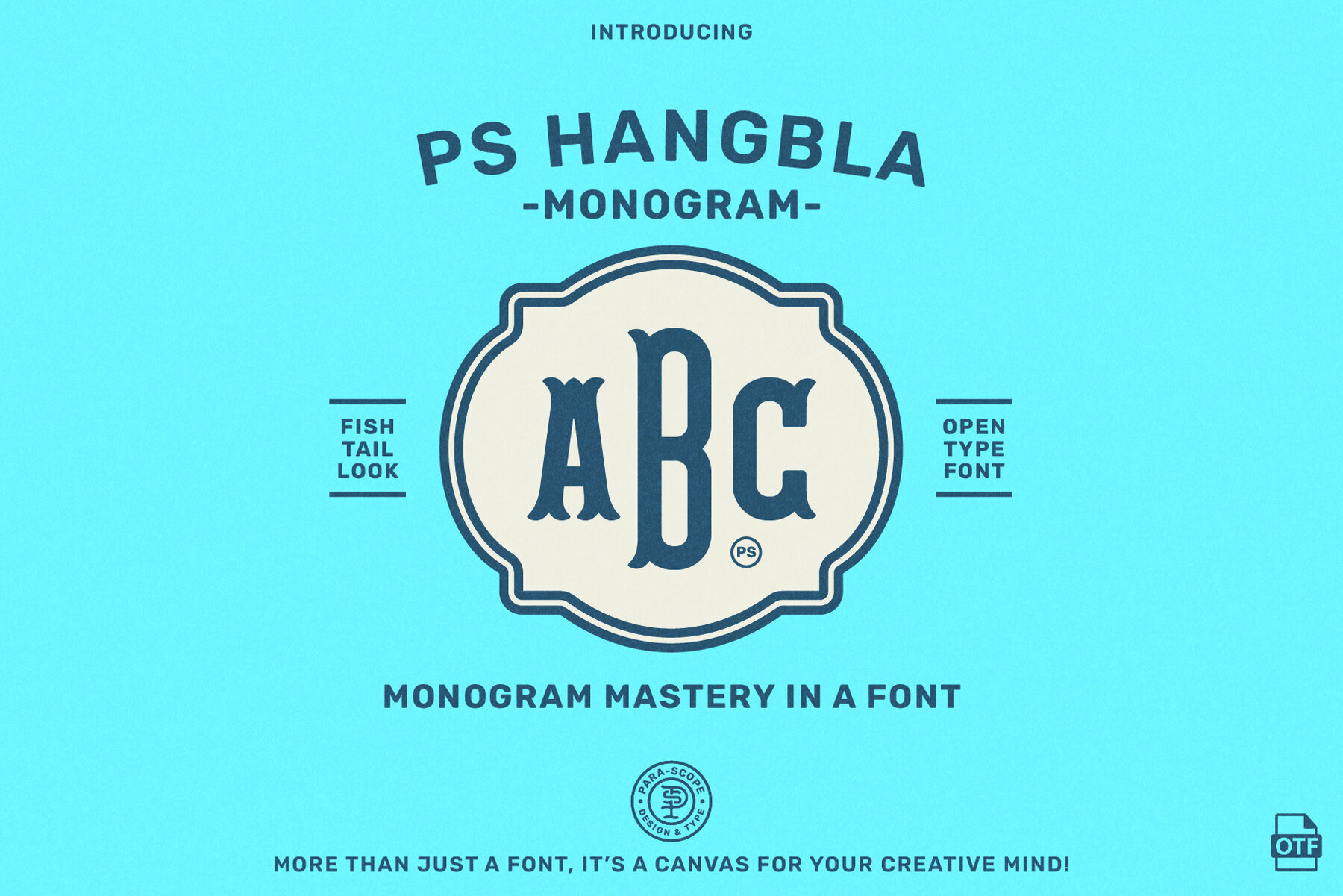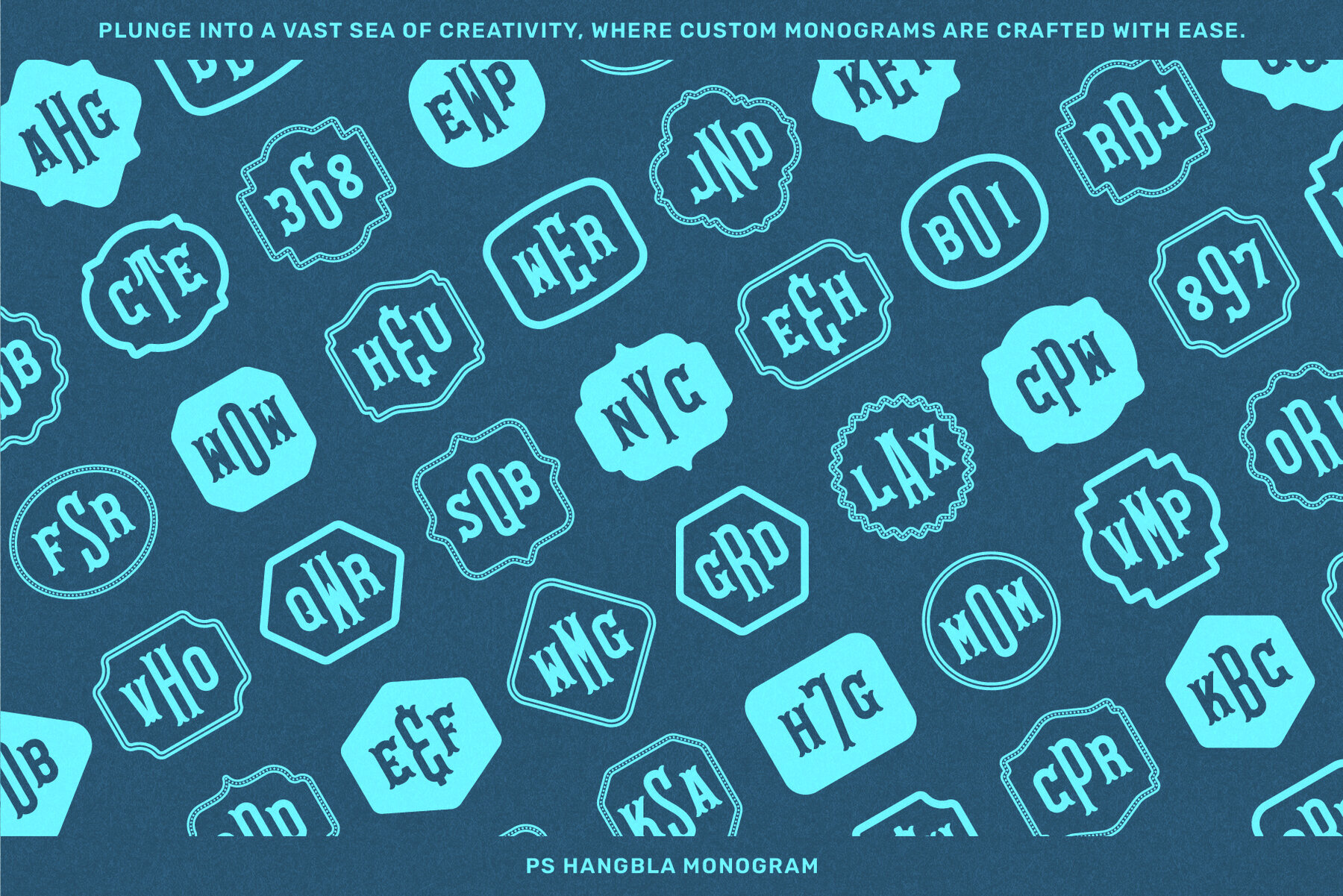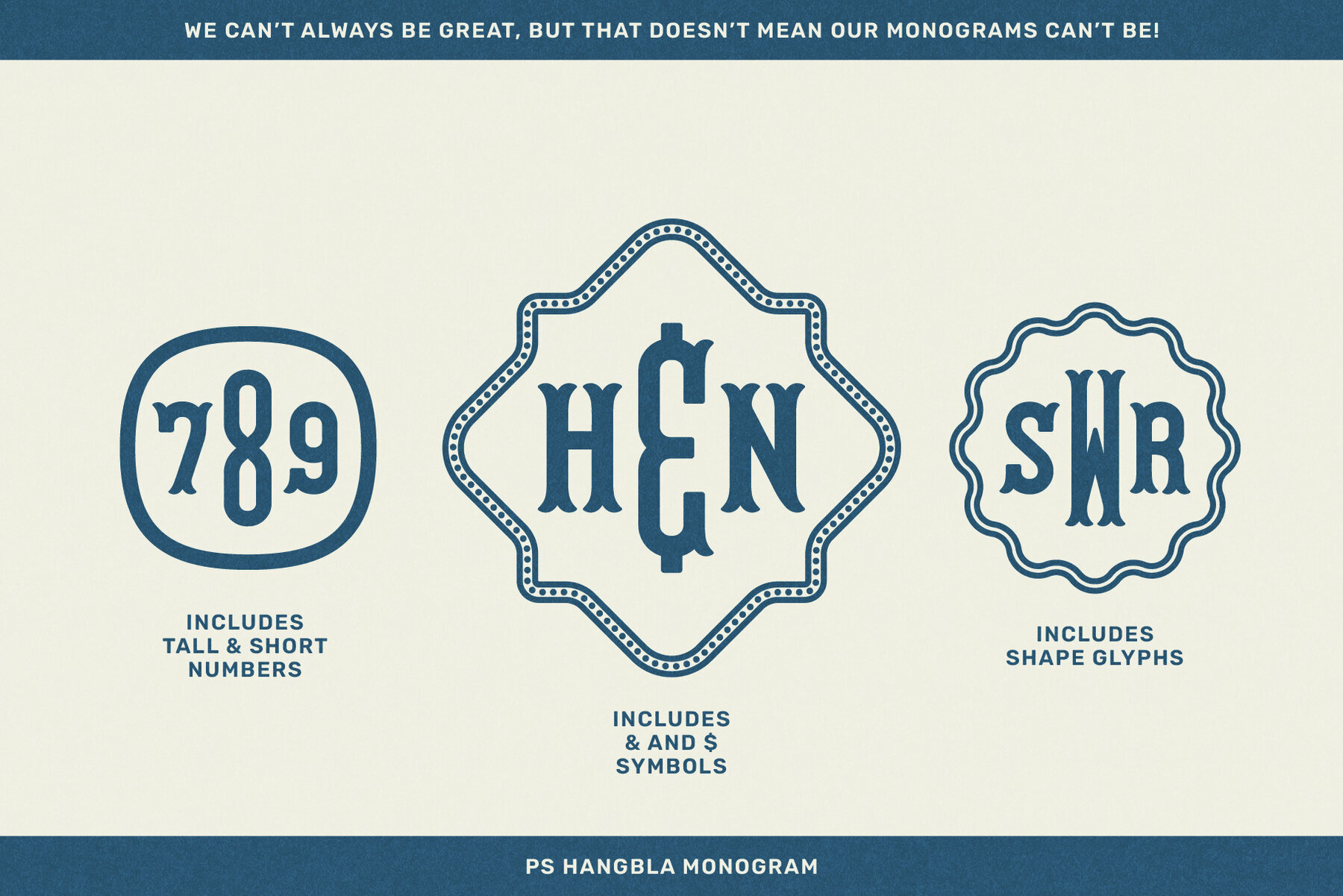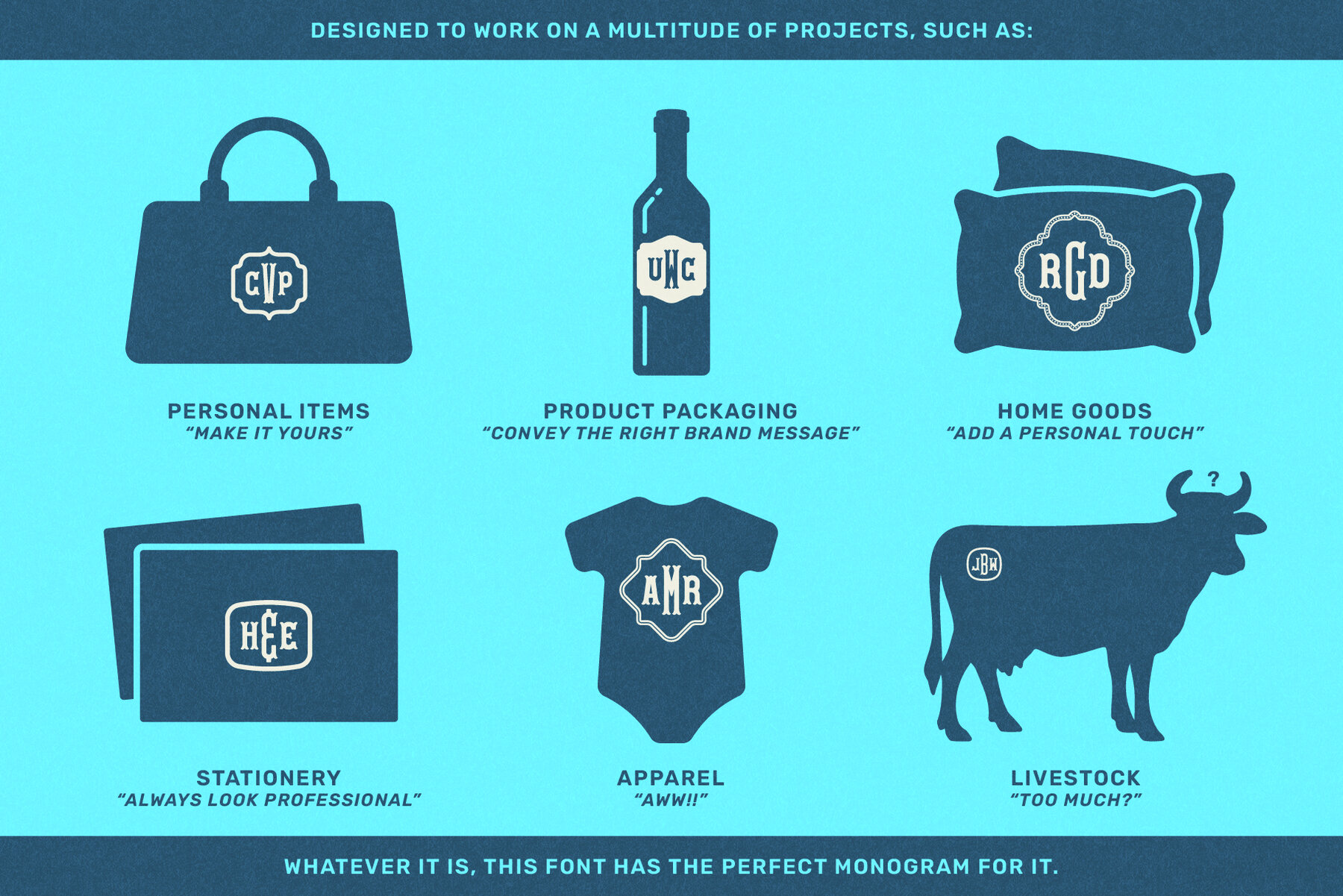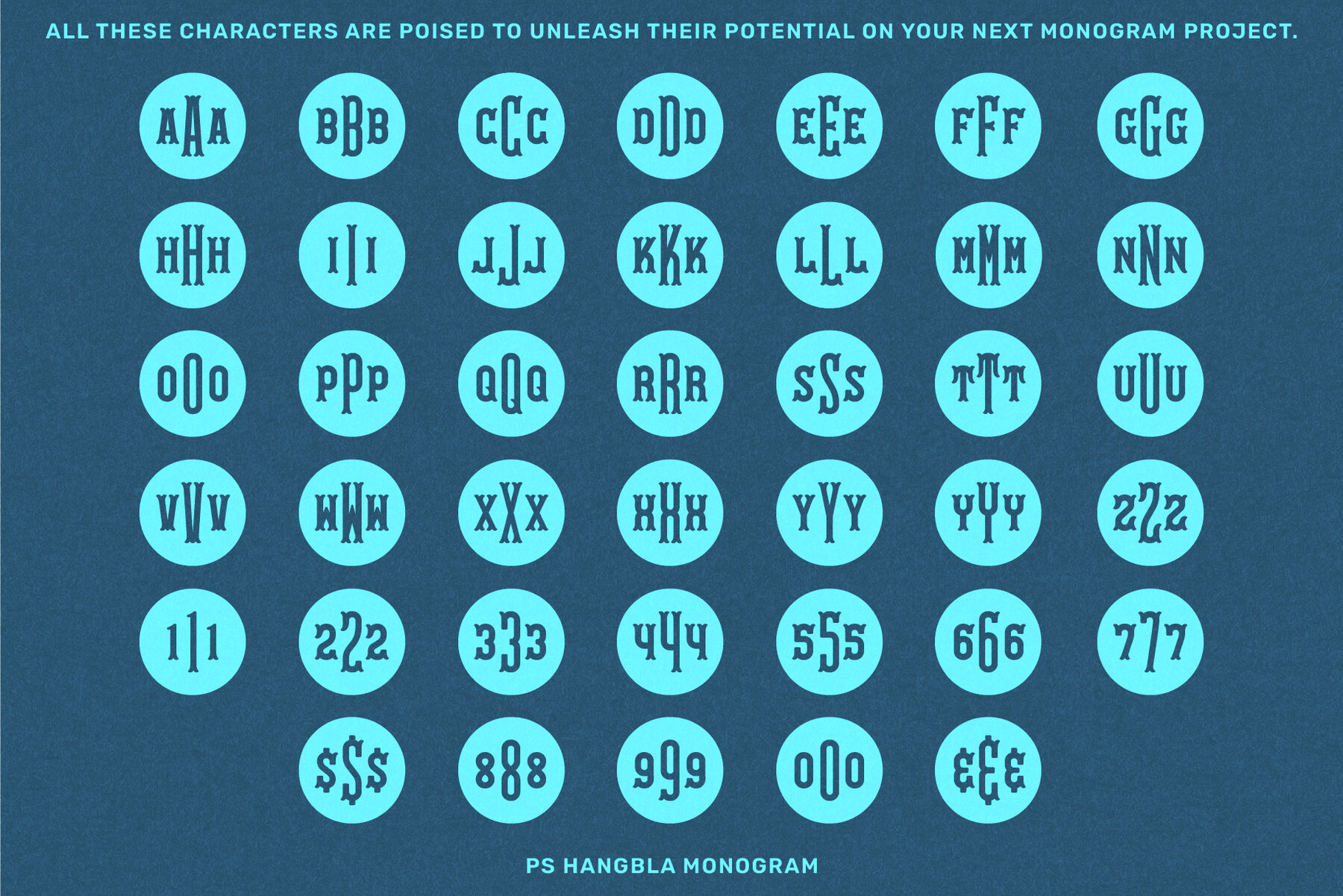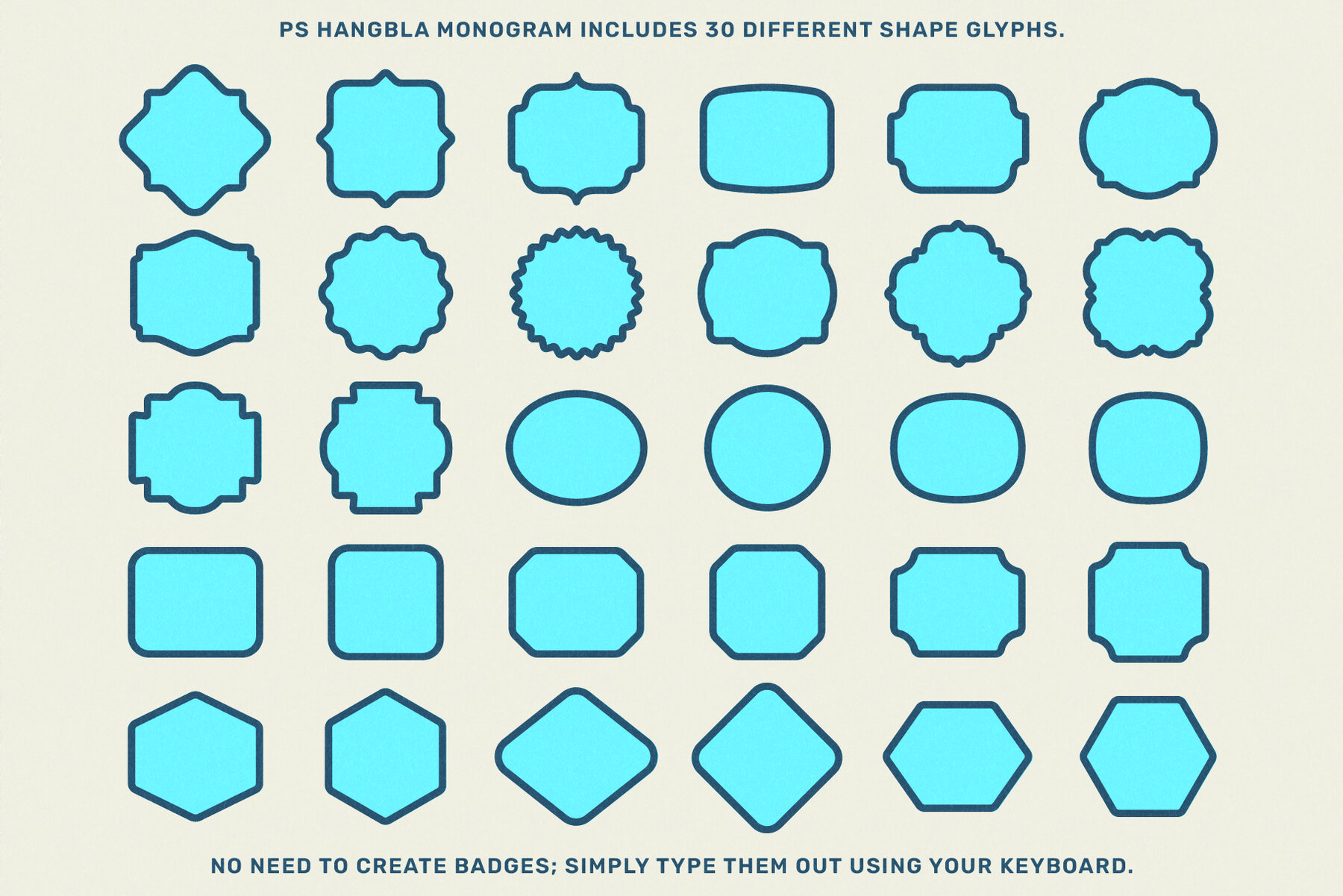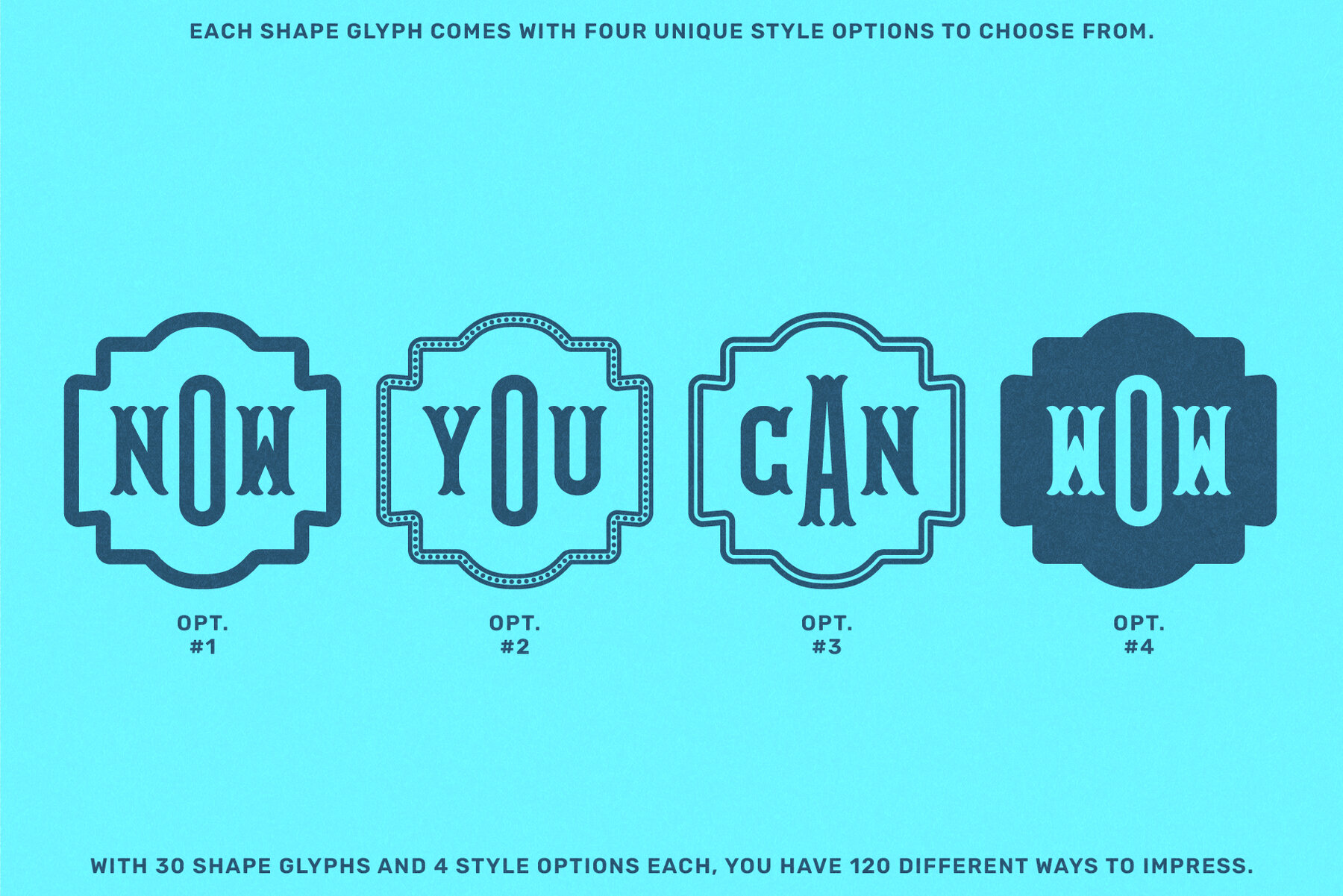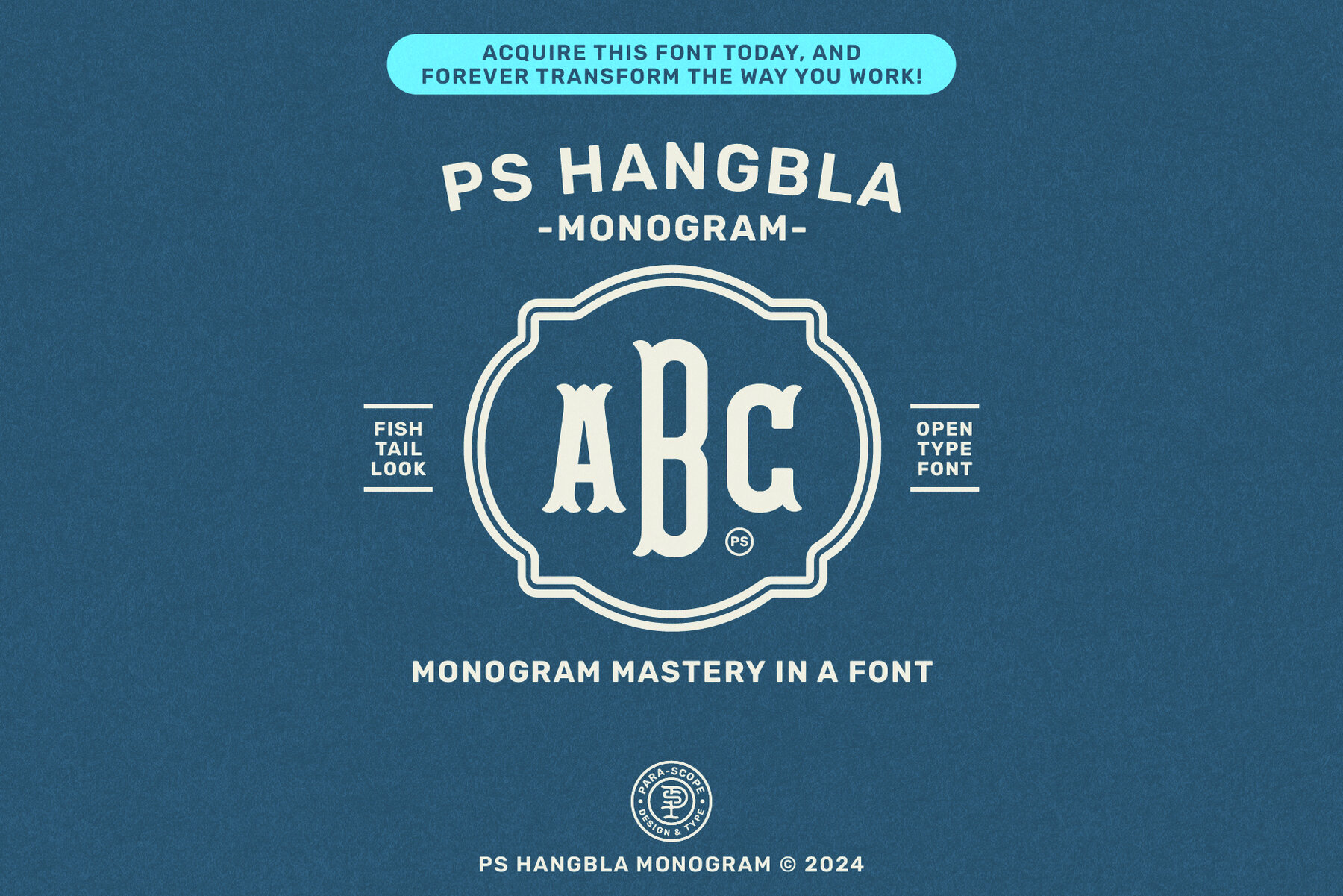
Introducing PS Hangbla Monogram: Less Guessing, More Impressing! But wait, there's more! Ever wished for an easier way to add those stylish badge shapes to your designs? Well, wish no more! With thirty sleek shape glyphs right at your fingertips, courtesy of PS Hangbla Monogram, your creativity knows no bounds. And let's talk about versatility. Whether you're a seasoned pro or just dipping your toes into the design world, this font is your golden ticket to unlocking a whole new level of creative genius. Its meticulously crafted letters and complementary shape glyphs blend together seamlessly, ensuring your creations radiate nothing but pure excellence. Ready to give your next project the love and quality it deserves? Elevate your designs with PS Hangbla Monogram today and discover what you've been missing out on. You'll wonder how you ever made monograms without it! Try it before you buy it. Not sure if it's the right fit of letters for your monogram, just give it a try in the text window above. IMPORTANT NOTES: This font was designed with the explicit purpose of creating three-letter monograms and is not intended for conventional writing. Therefore, when typing symbols such as periods, commas, question marks, and so on, you will instead get shape glyphs that you can use to build your monograms. Lastly this font was designed for use in Adobe Illustrator or Photoshop and may not work in other programs such as Word etc. What's Included Compatible With
Picture this: with just a few taps of your keyboard, you can open a door to a world where crafting personalized, top-tier monograms takes mere seconds. No more painstakingly piecing together each letter by hand. Nope, not here! Simply type out your chosen trio of letters in lowercase, uppercase, lowercase order, and voilà! Your masterpiece is ready to shine.